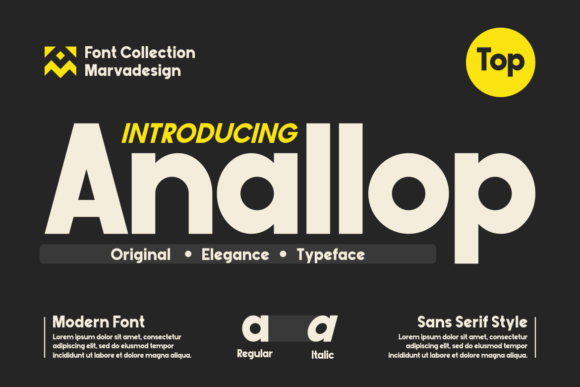
The Perfect Canvas for Your Creativity
Have you ever sat at your desk, staring at a blank page or screen, waiting for inspiration to strike? You’ve got a great idea, but it’s just not translating onto the page. That’s where the right font can be a game-changer. A single font can elevate your entire design, making it pop with personality and style.
Enter the Anallop Font, a bold and assertive sans serif font that’s sure to take your designs to the next level. With its sleek lines and modern feel, Anallop Font is the perfect addition to any font library. Whether you’re designing a logo, a brochure, or a website, Anallop Font has the potential to elevate your creation and leave a lasting impression.
Anallop Font Key Features
- Unique Character Set: This font features a unique set of characters, including additional symbols and glyphs, which can add a touch of elegance and sophistication to designs.
- Weight and Style Options: The font is available in various weights and styles, including light, regular, bold, and italic, allowing designers to choose the perfect fit for their project.
Anallop Font Review
Overall, I think the Anallop font has some great qualities, but also some areas that need improvement. ✨ First of all, the unique character set is quite attractive and can add a personal touch to your designs. The font is also quite versatile and can be used for both digital and print projects.
Some of the strengths of the Anallop font include:
- Unique character set with a personal touch
- High level of versatility for digital and print projects
- Good legibility, even at smaller font sizes
- ⚠️ Limited language support, may not be suitable for projects that require multiple languages
- ⚠️ Some users may find the font too ornate or decorative, which can be a distraction in certain contexts
- ⚠️ Not all devices or platforms may render the font correctly, which can lead to inconsistent results
Overall, I would say that the Anallop font is a solid choice for designers who are looking for a unique and versatile font. However, it’s essential to consider the limitations and ensure that the font will meet the needs of your project.
The Anallop Font is ideal for:
- Designing creative and modern logos.
- Creating eye-catching social media graphics.
- Adding a touch of elegance to presentations and documents.